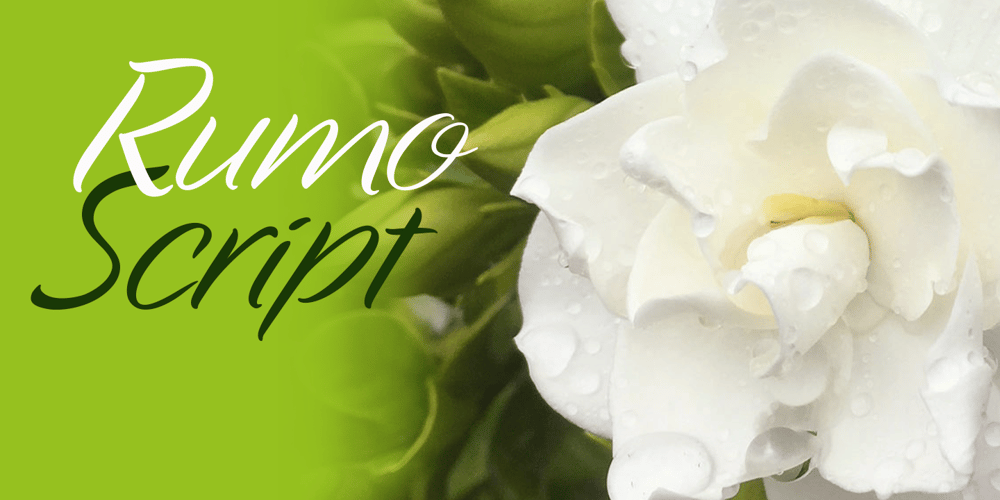
Rumo Script Font Family was designed by Keith Morris and published by Bean & Morris. Rumo Script contains 1 styles and family package options. Rumo Script is a bright, breezy, free-flowing contemporary script to lighten the load when a change of pace is required to communicate freshness, fun, lifestyle and a general ‘good feeling’. Designed so that some letters connect while others don’t giving a spontaneous feel at the same time keeping it a ‘considered’ style. Rumo (pronounced Roo-mo) will enhance your graphics and give them that ‘wow’ look!